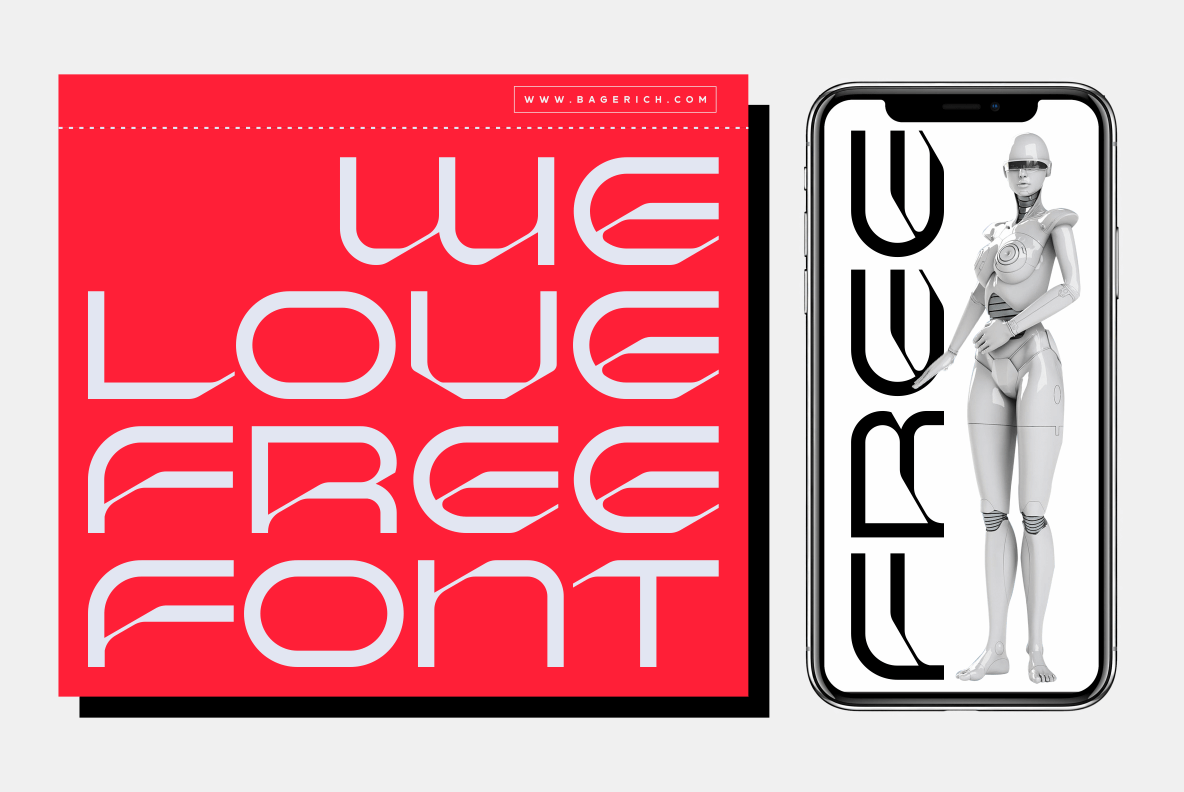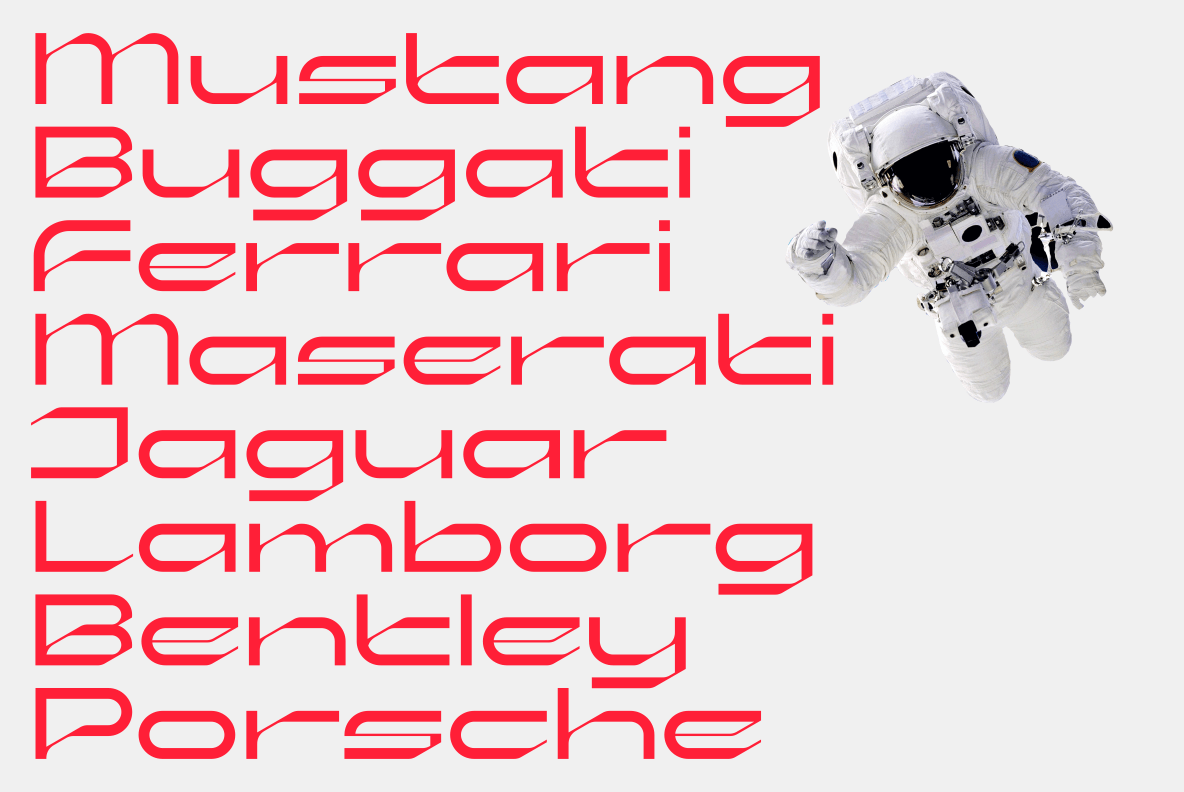
Baunk Typeface
Introducing Baunk Typeface, a cutting-edge free sans serif font crafted by the talented designer Reza Rasenda. This modern typeface boasts both upper and lowercase characters, as well as multilingual support and numbers and punctuation. Its sleek and futuristic design makes it the perfect choice for various applications, including logos, titles, packaging, web design, and apps, particularly in the tech and gaming industries. Don’t miss out on this versatile and innovative font!  Make an awesome design using this Baunk Typeface enchanting font.